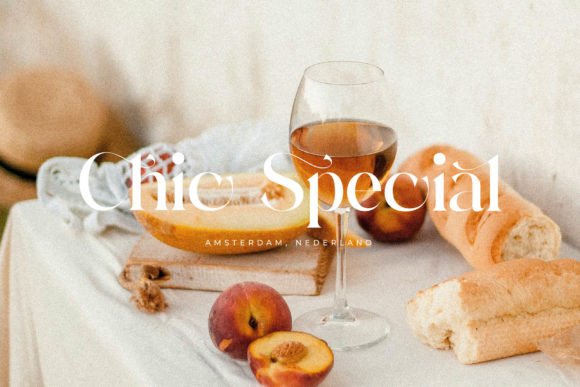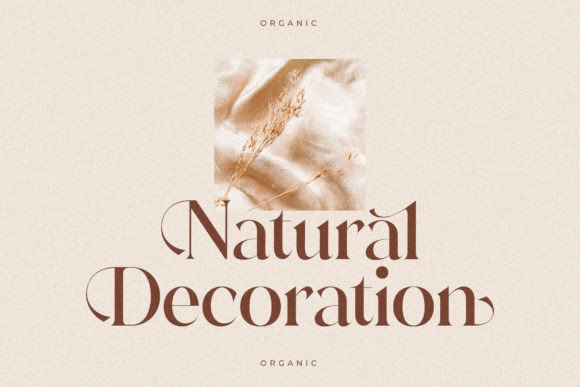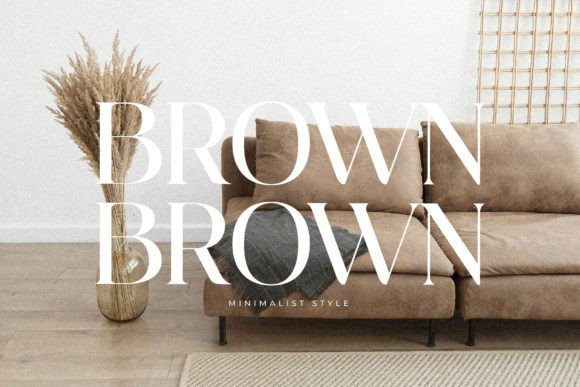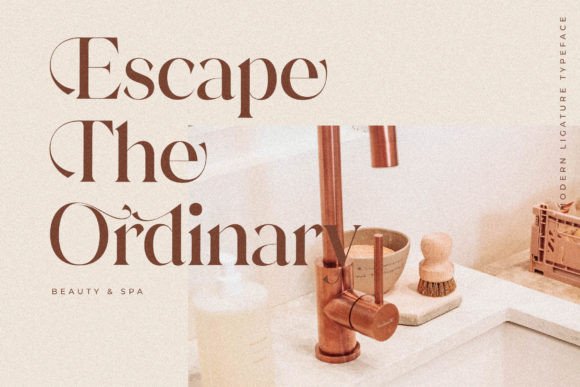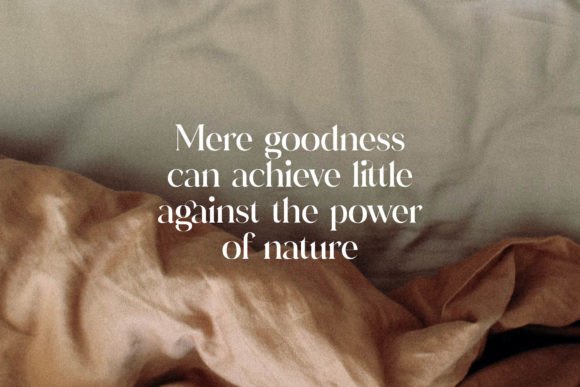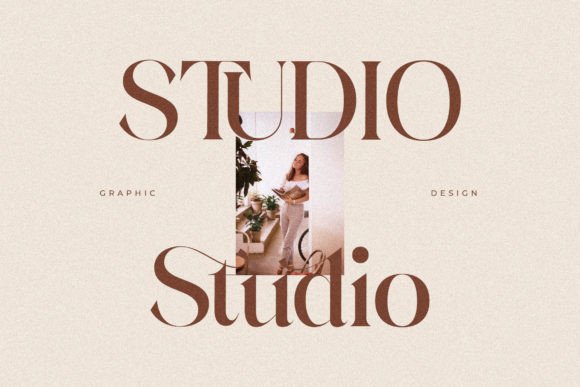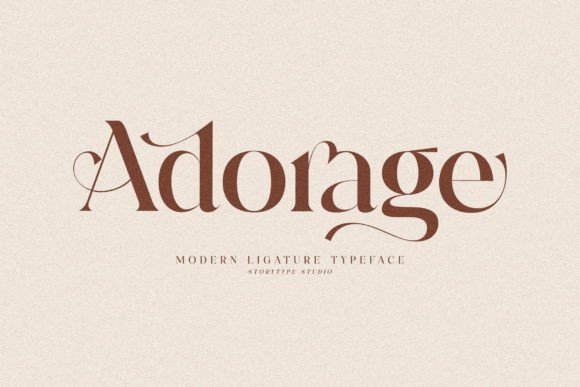
Introducing Adorage Font: A Playfully Nostalgic Serif Font for Your Retro-Inspired Designs
Are you a designer or crafter looking to add a touch of nostalgia to your designs? Look no further than the Adorage font! This beautifully crafted serif font is designed to evoke a sense of playfully nostalgic charm, delivering an incredible vintage aesthetic that’s sure to make your designs stand out.
The Perfect Blend of Retro and Modern
Adorage font is the perfect blend of retro and modern, combining classic serif elements with a fresh and modern twist. The result is a font that’s both nostalgic and contemporary, making it ideal for a wide range of design projects. Whether you’re creating a vintage-inspired logo, a retro-style poster, or a classic-looking business card, Adorage font is the perfect choice.
Key Features of Adorage Font
So, what makes Adorage font so special? Here are just a few of its key features:
- Playfully Nostalgic Design: Adorage font is designed to evoke a sense of nostalgia and playfulness, making it perfect for designs that require a retro touch.
- Serif Elegance: With its classic serif elements, Adorage font exudes elegance and sophistication, making it ideal for designs that require a touch of refinement.
- Vintage Aesthetic: Adorage font delivers an incredible vintage aesthetic that’s sure to transport your designs back in time.
- Highly Versatile: Whether you’re creating a logo, poster, business card, or any other design project, Adorage font is highly versatile and can be used in a wide range of applications.
How to Use Adorage Font in Your Designs
Using Adorage font in your designs is easy! Here are a few tips to get you started:
- Pair with Modern Fonts: Pair Adorage font with modern fonts to create a striking contrast that adds visual interest to your designs.
- Experiment with Colors: Adorage font looks great in a range of colors, from bold and bright to muted and pastel. Experiment with different colors to find the perfect look for your design.
- Use in Combination with Graphics: Adorage font looks great in combination with graphics, such as illustrations, patterns, and textures. Use it to add a touch of nostalgia to your designs.
Why Designers and Crafters Love Adorage Font
So, why do designers and crafters love Adorage font? Here are just a few reasons:
- Unique and Distinctive: Adorage font is a unique and distinctive font that’s sure to make your designs stand out from the crowd.
- Easy to Read: Despite its vintage aesthetic, Adorage font is easy to read and can be used in a wide range of design projects, from body text to headings.
- High-Quality Design: Adorage font is designed to high standards, ensuring that it looks great in any design project.